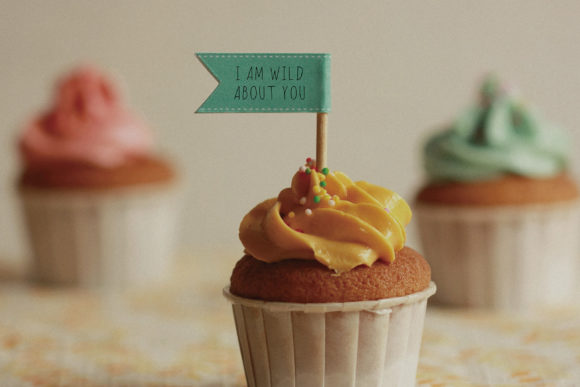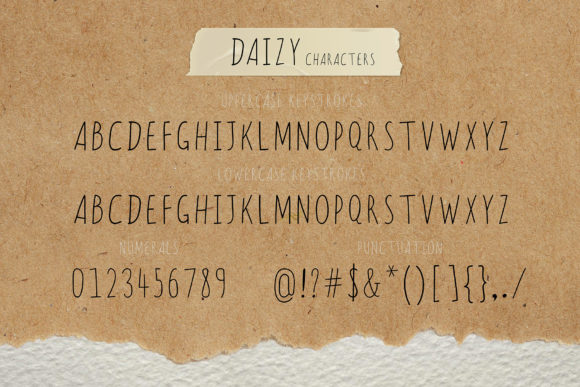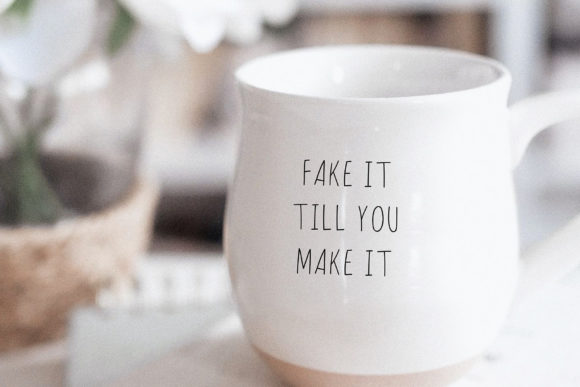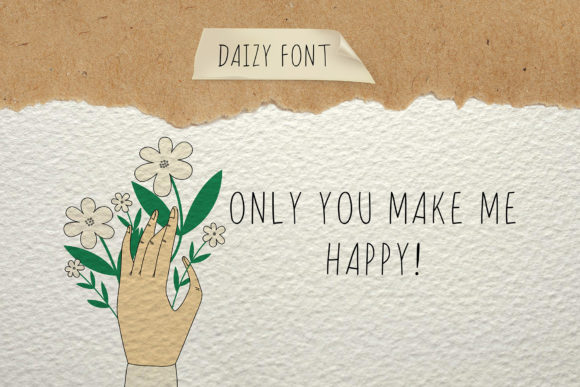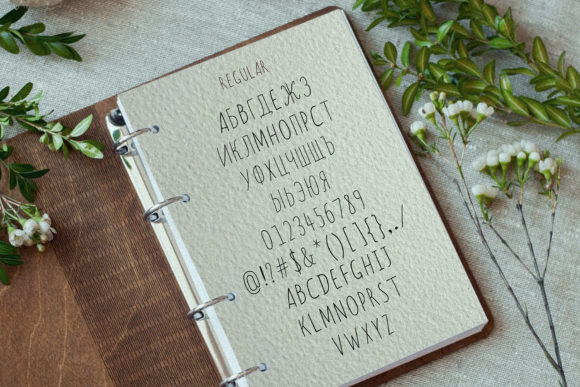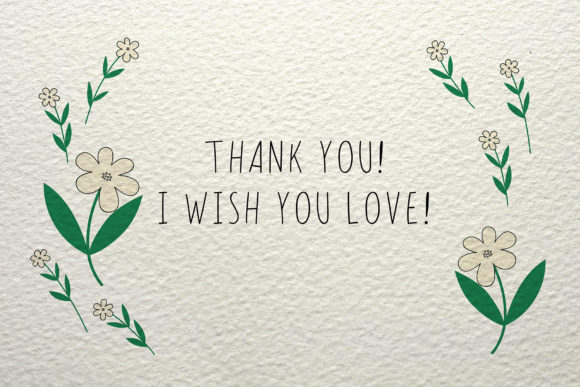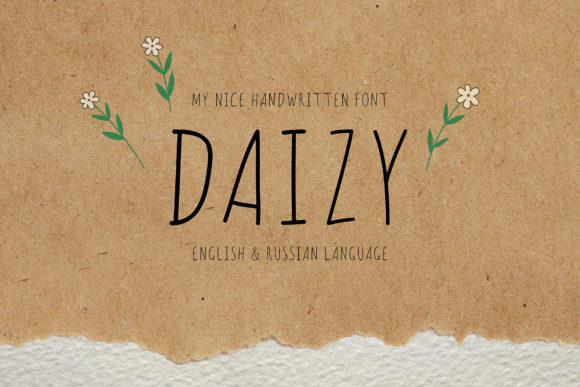
Discover the Charm of Daizy Font: A Cute, Clean, and Slim Handwritten Font
Are you on the hunt for a font that adds a touch of elegance and playfulness to your design projects? Look no further than Daizy Font, a beautiful, handwritten font that is perfect for a wide range of applications. In this article, we’ll dive into the features and benefits of Daizy Font, and explore how it can elevate your designs to the next level.
What is Daizy Font?
Daizy Font is a delightful, handwritten font that is characterized by its clean, slim lines and adorable charm. Its unique and elegant style makes it an excellent choice for designers and crafters looking to add a personal touch to their projects. Whether you’re working on a logo, branding project, label, photography, watermark, or special event, Daizy Font is sure to bring a smile to your audience’s faces.
Key Features of Daizy Font
- Cute and Playful: Daizy Font boasts a sweet and endearing quality that is perfect for designs that require a touch of whimsy and fun.
- Clean and Slim: The font’s clean and slim lines ensure that it remains legible and elegant, even at smaller sizes.
- Handwritten: Daizy Font’s handwritten style gives it a personal and organic feel that is perfect for adding a human touch to your designs.
- Versatile: This font is suitable for a wide range of projects, from logos and branding to labels, photography, and more.
Benefits of Using Daizy Font
So, why choose Daizy Font for your design projects? Here are just a few benefits of using this lovely font:
- Adds a Personal Touch: Daizy Font’s handwritten style and playful charm make it an excellent choice for adding a personal touch to your designs.
- Enhances Readability: The font’s clean and slim lines ensure that your text remains easy to read, even at smaller sizes.
- Boosts Creativity: Daizy Font’s unique and adorable style is sure to inspire your creativity and help you come up with fresh design ideas.
- Perfect for Branding: The font’s elegant and sophisticated style makes it an excellent choice for branding projects, including logos, labels, and packaging.
How to Use Daizy Font in Your Designs
Using Daizy Font in your designs is easy and straightforward. Here are a few tips to get you started:
- Pair it with Other Fonts: Daizy Font pairs well with a variety of other fonts, including sans-serif and serif fonts. Experiment with different combinations to find the perfect look for your design.
- Use it for Headings and Titles: Daizy Font’s bold and playful style makes it perfect for headings and titles. Use it to add a touch of elegance and whimsy to your design.
- Add it to Your Branding: Daizy Font is an excellent choice for branding projects, including logos, labels, and packaging. Use it to add a personal touch to your brand identity.
In conclusion, Daizy Font is a beautiful, handwritten font that is perfect for designers and crafters looking to add a touch of elegance and playfulness to their design projects. With its clean, slim lines and adorable charm, Daizy Font is sure to bring a smile to your audience’s faces. Whether you’re working on a logo, branding project, label, photography, watermark, or special event, Daizy Font is an excellent choice. So why wait? Download Daizy Font today and start creating stunning designs that will leave a lasting impression on your audience.
Daizy Font is suitable for any projects such as:
- Logos
- Branding projects
- Labels
- Photography
- Watermark
- Special events
- And all your other lovely projects that need a beautiful taste